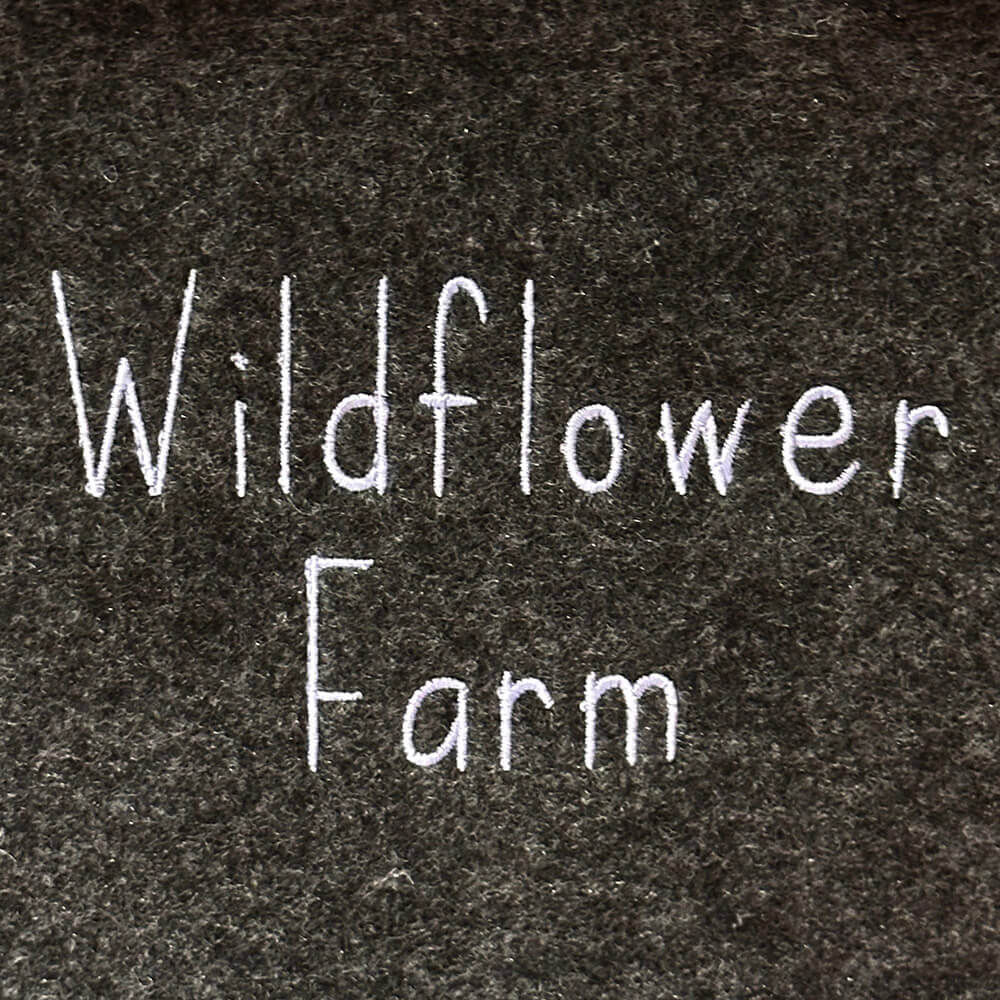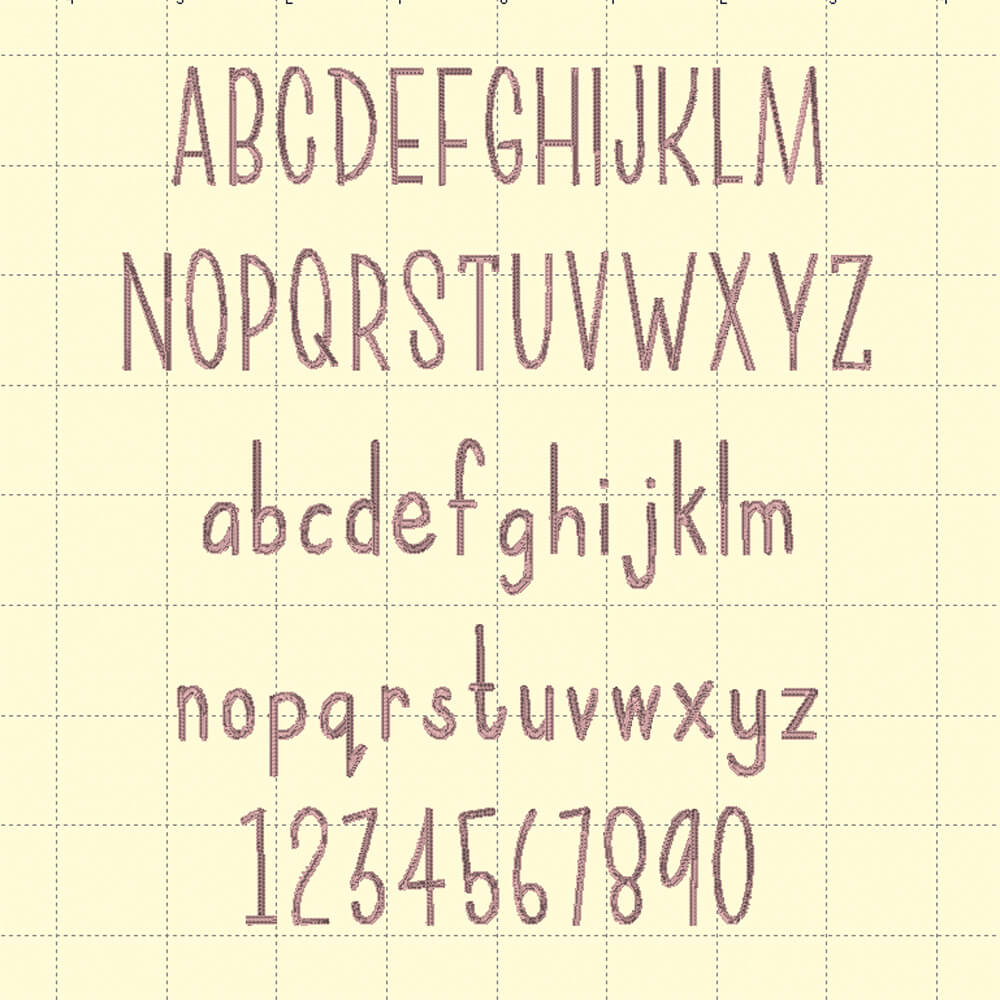
Wildflower Farm – Machine Embroidery Font
Add a touch of rustic charm to your projects with the Wildflower Farm Machine Embroidery Font inspired by blooming wildflowers and country living.
Wildflower Farm – Machine Embroidery Font
All upper case and lower case letters and numbers